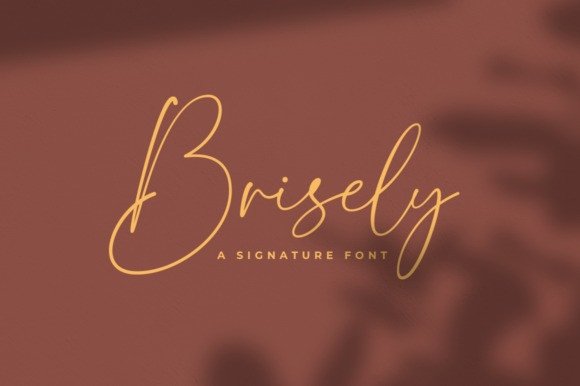
Brisely Signature Font
Brisely Font is made a naturally modern script with a fresh modern script; delivering a stylish script which is guaranteed to add an eye-catching appeal to your logo designs, brand imagery, quotes, product packaging, merchandise & social media posts.